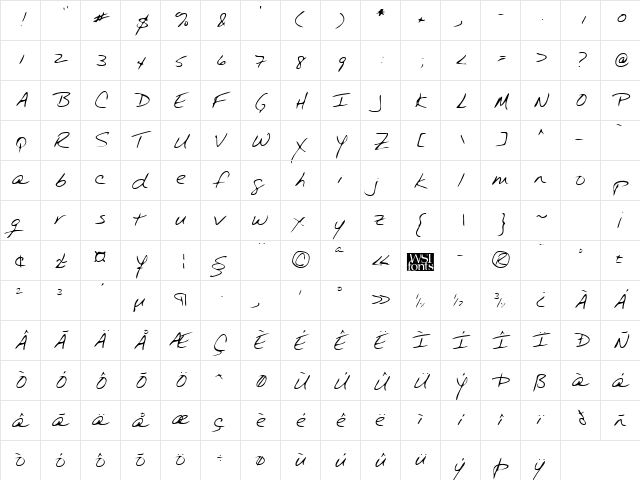
RamseysHand Regular Font Preview
RamseysHand Regular
Design Context for RamseysHand Typeface
RamseysHand flows with the natural rhythm of handwritten lettering, making it ideal for designs that call for warmth and personal expression.
Font Pairing: Combine RamseysHand with a simple geometric sans for maximum contrast — the tension between flowing curves and clean structure is a classic typographic pairing.
Pro Tip: Use RamseysHand for short runs of text — names, titles, or taglines. Extended body copy in script faces tires the eye quickly.